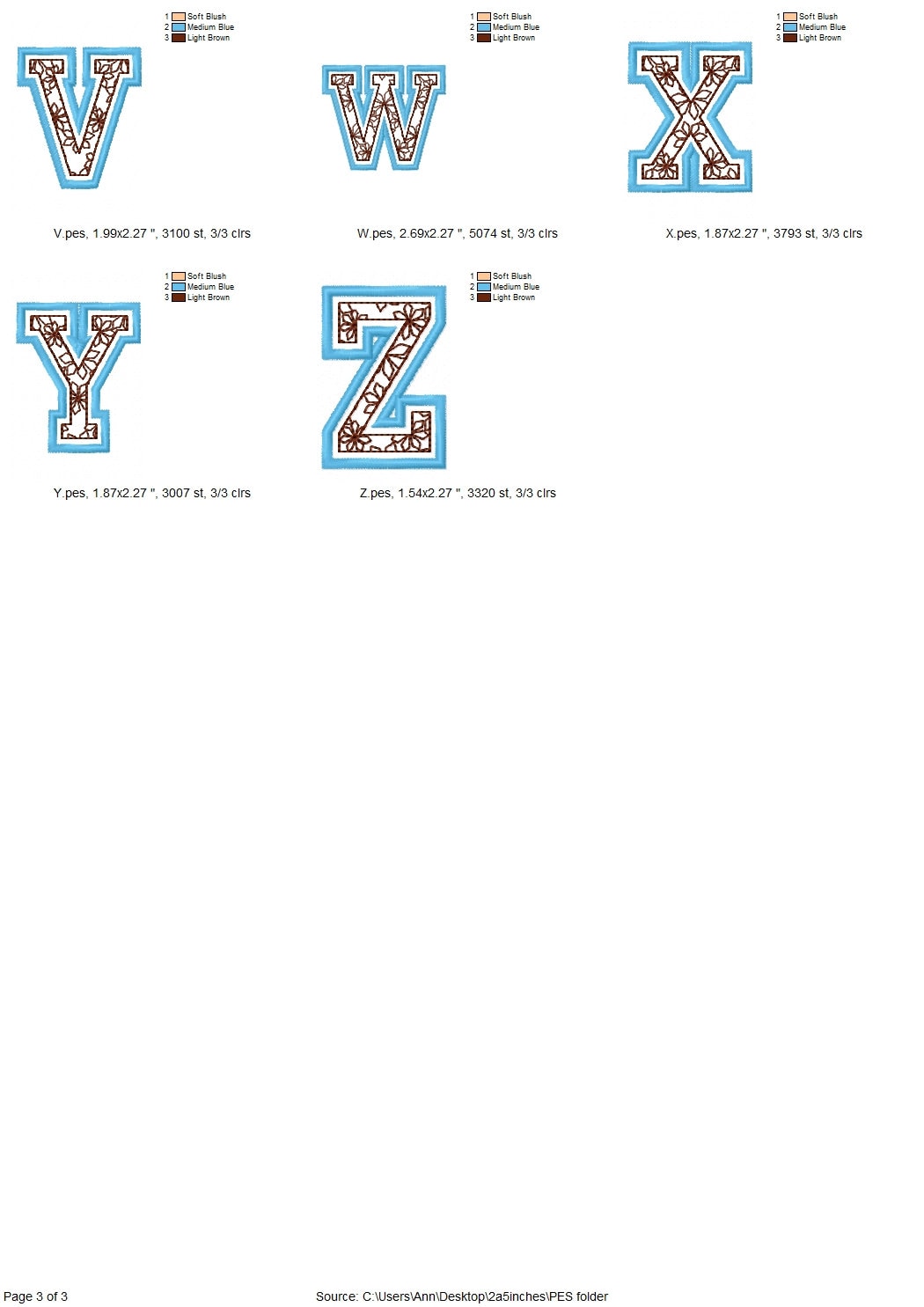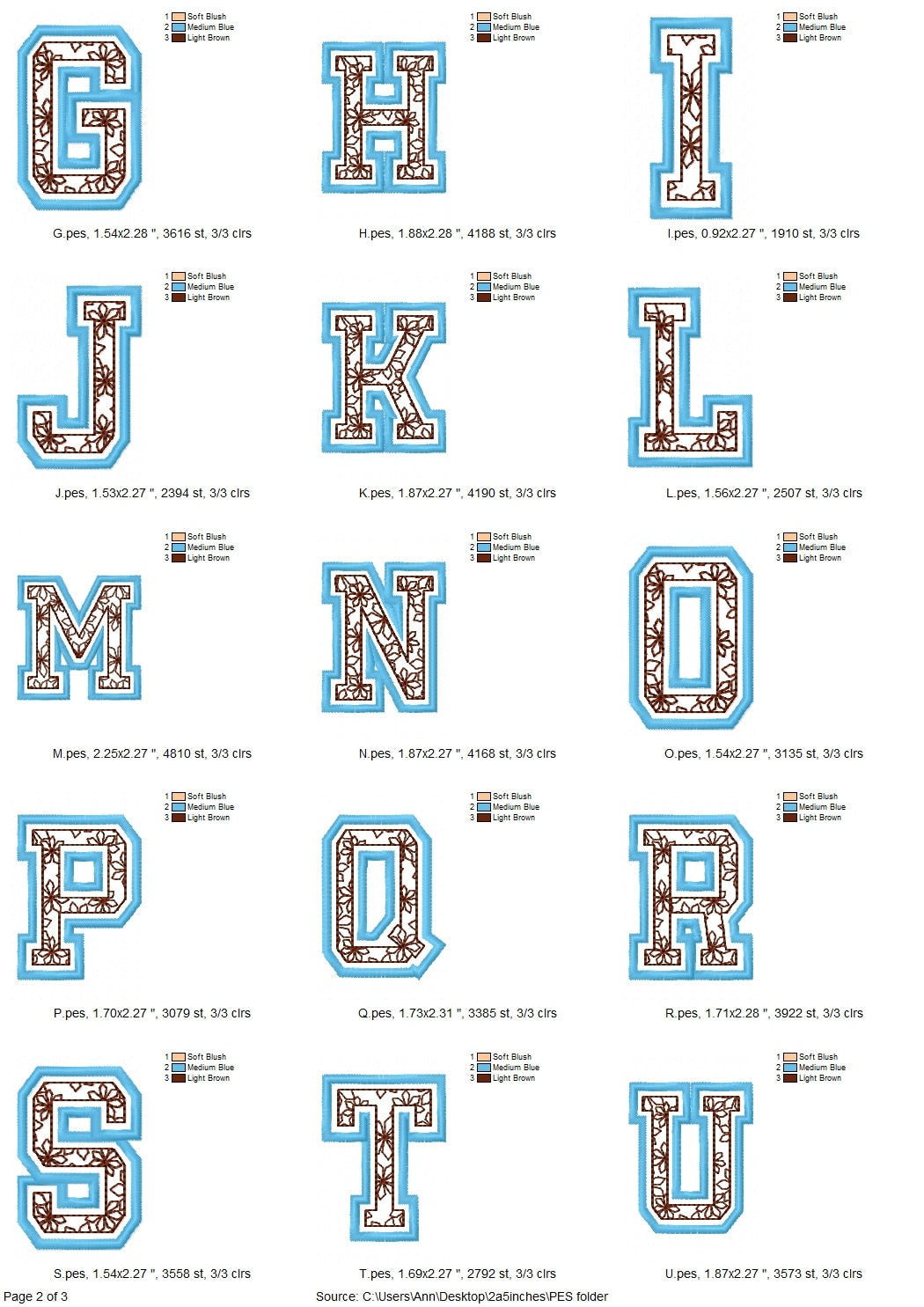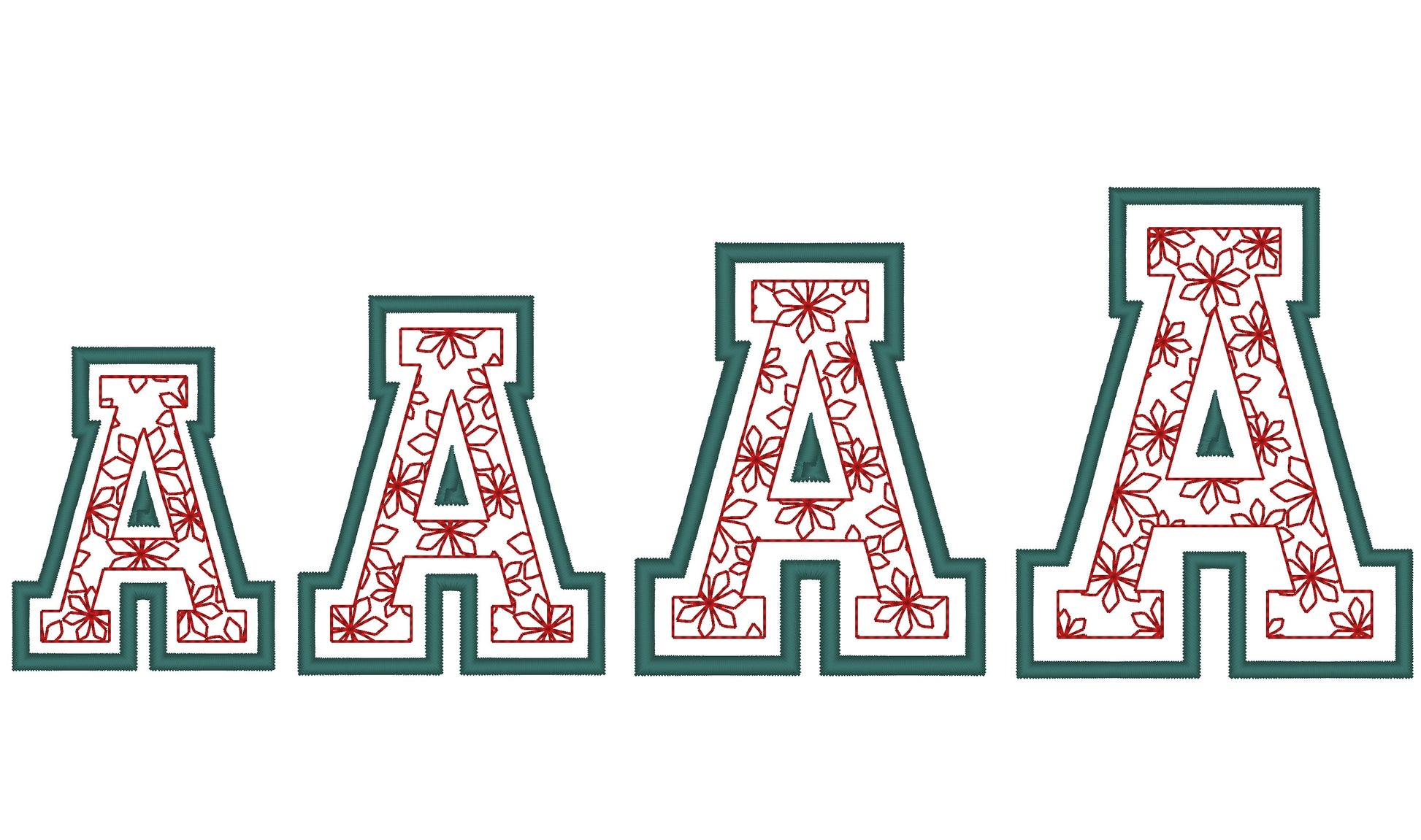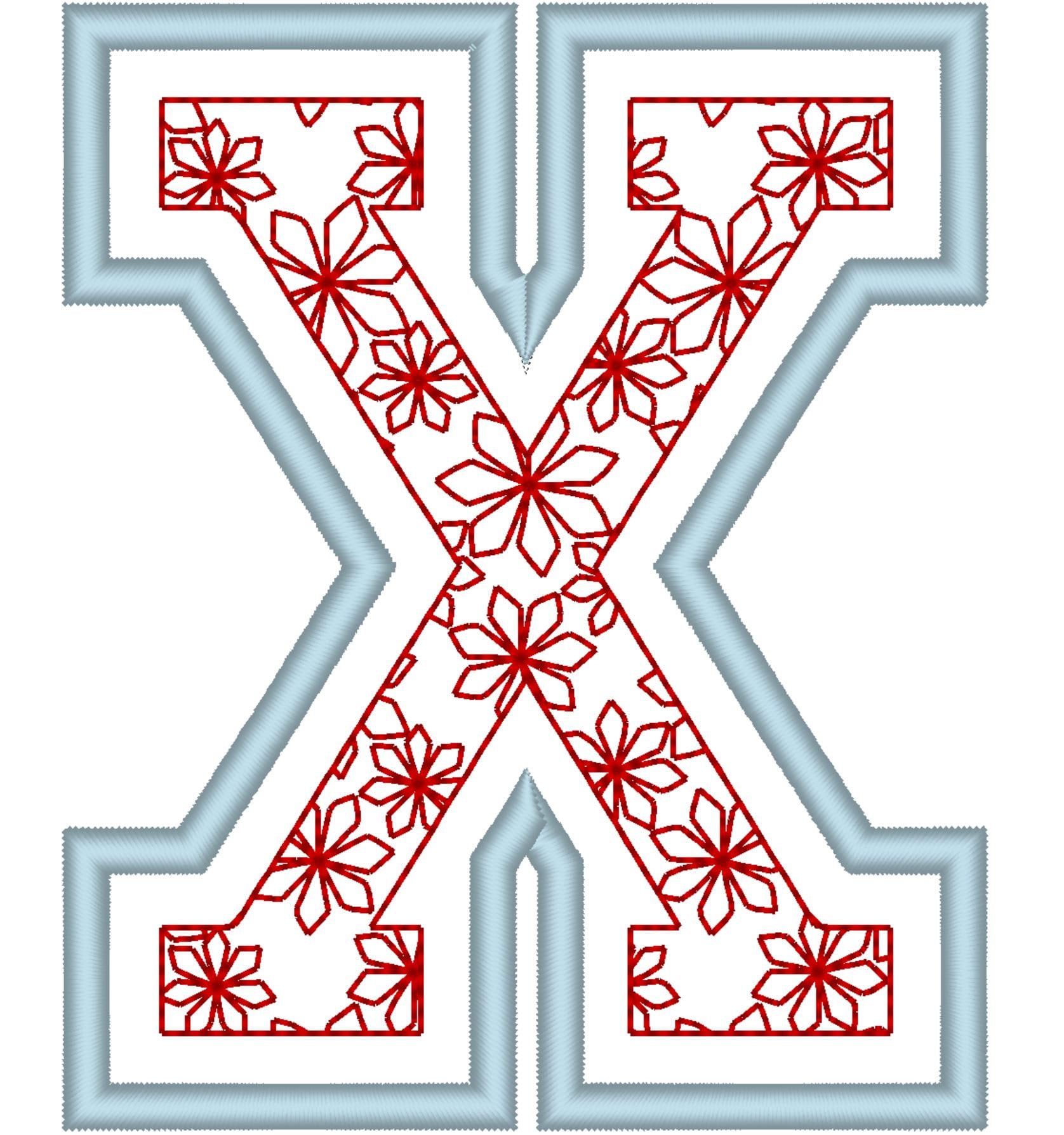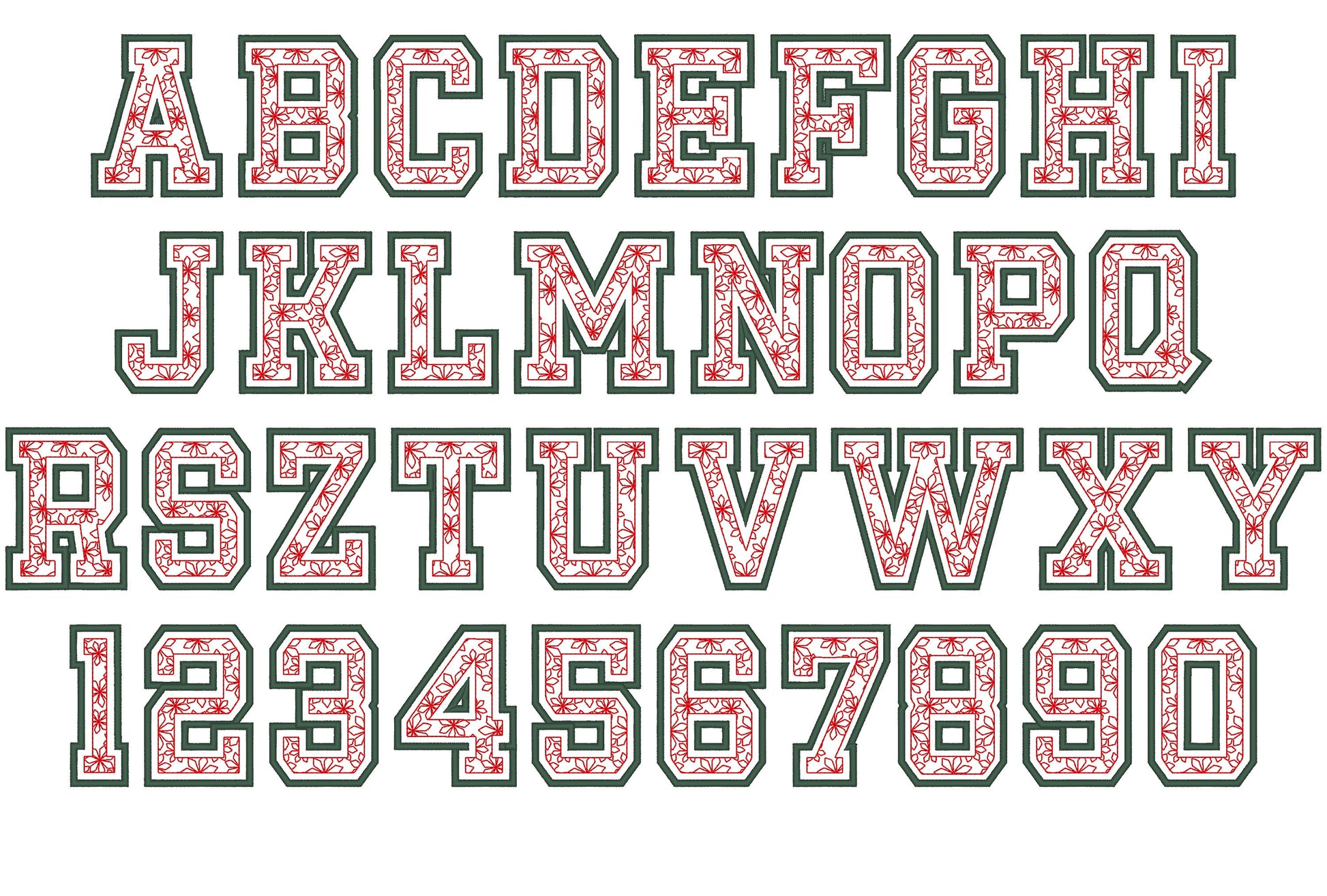
Floral Fill Satin Stitch Outline Varsity Font
Or click to open the linkA varsity outline font with a floral light stitch fill and two outlines. Pretty for girls' team shirts, sweatshirts, bags and monograms.
Uppercase letters A to Z and numbers 1 to 9. Four sizes: 2.5, 2.7, 3.5 and 4 inches. Light floral fill inside a satin outline.
- Floral fill varsity outline font
- Uppercase A to Z, numbers 1 to 9
- 4 sizes, 2.5 to 4 in